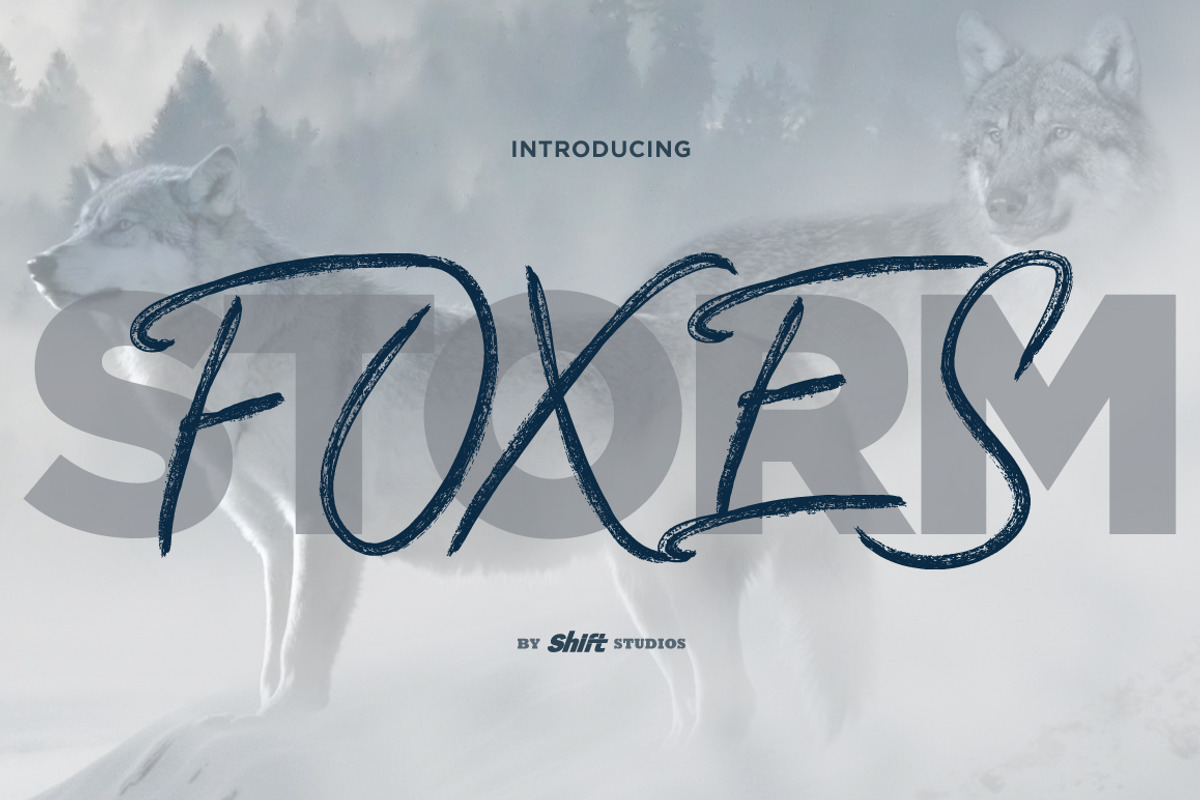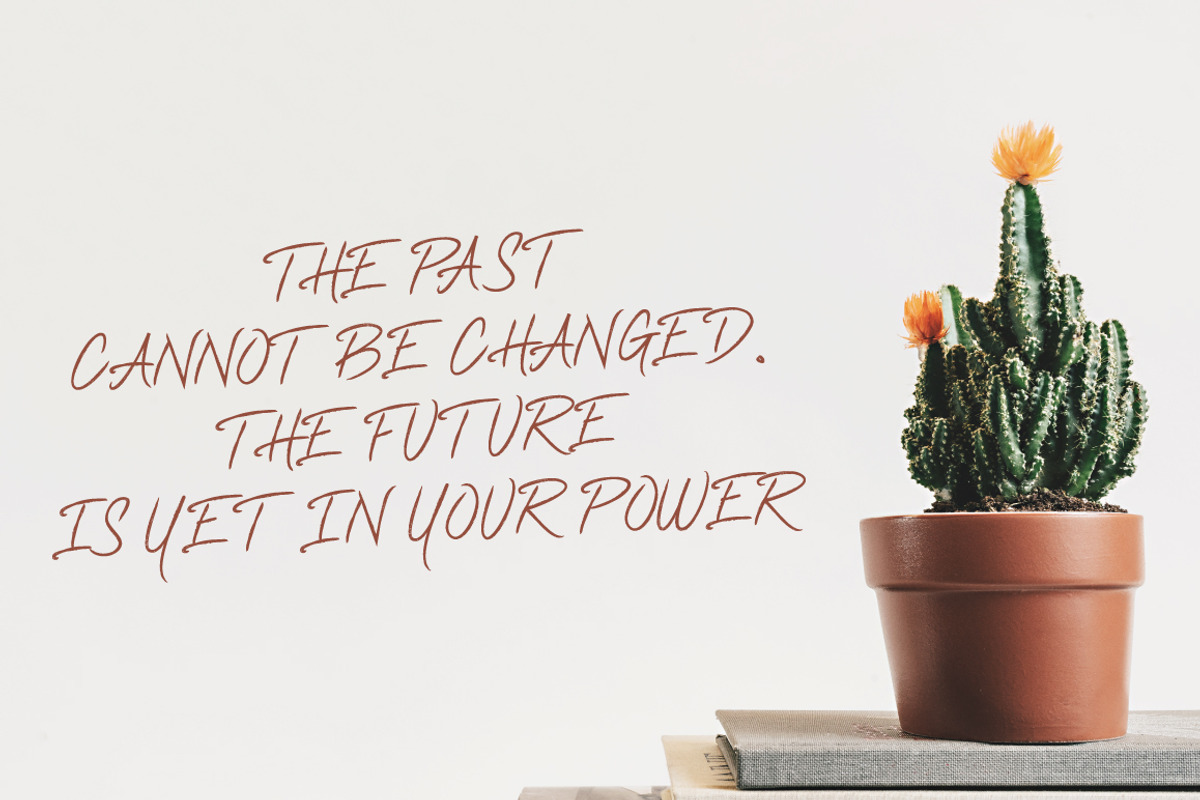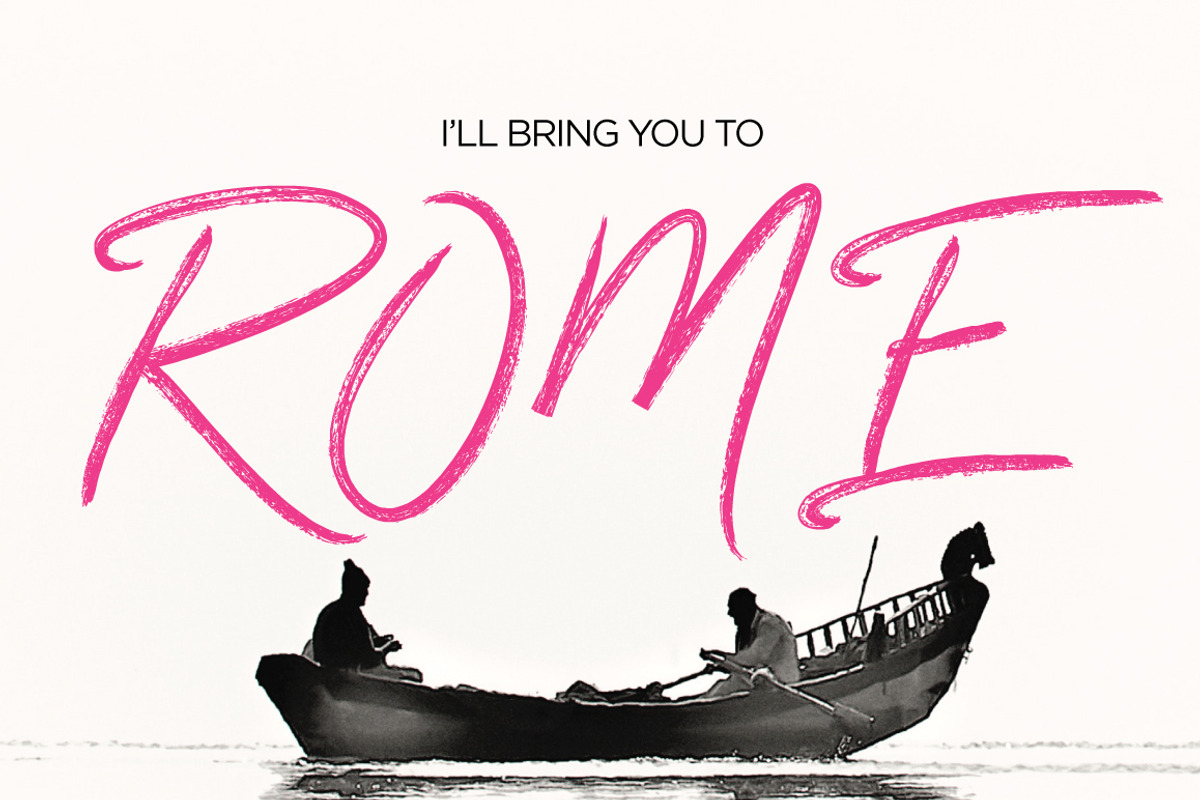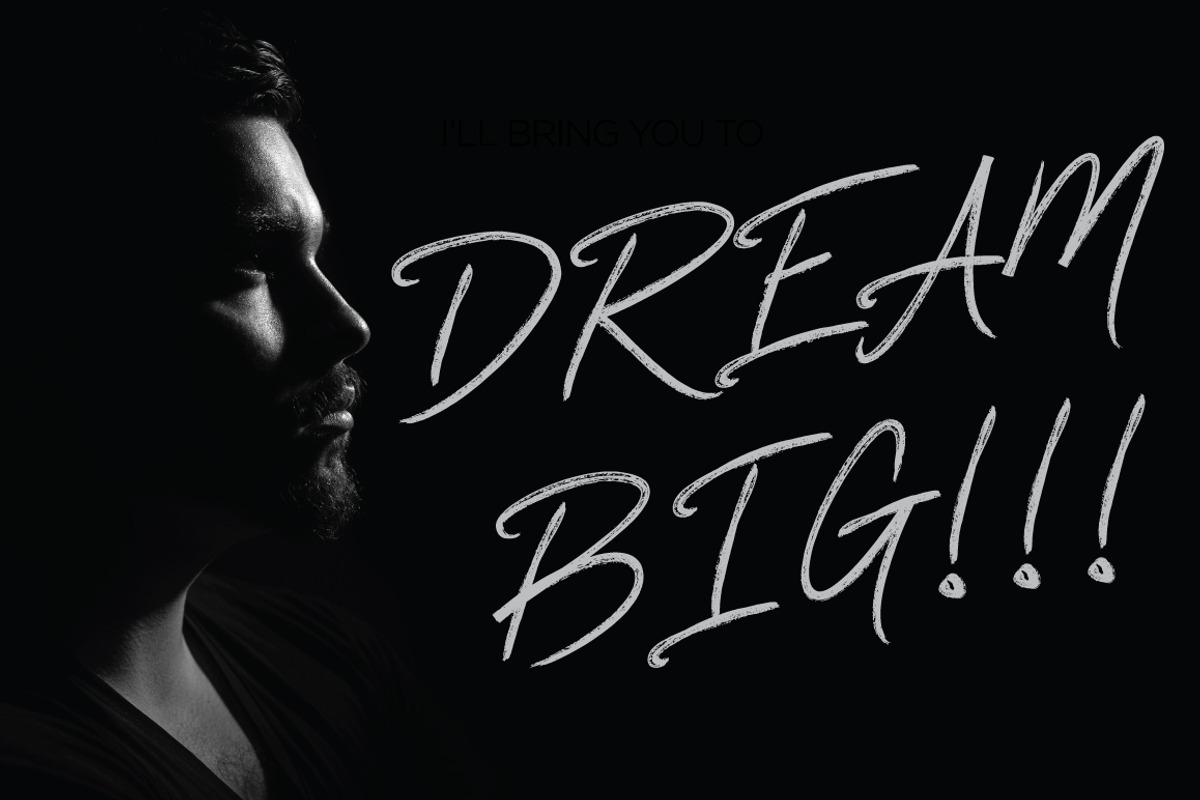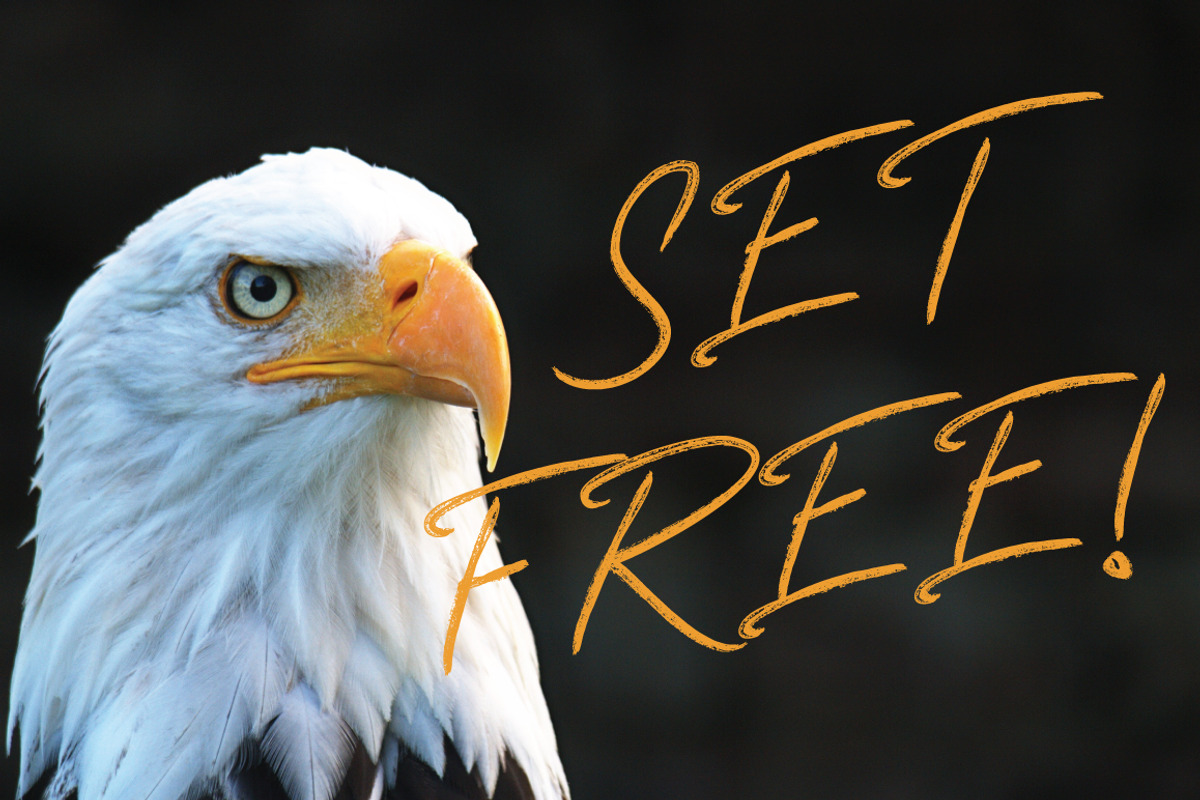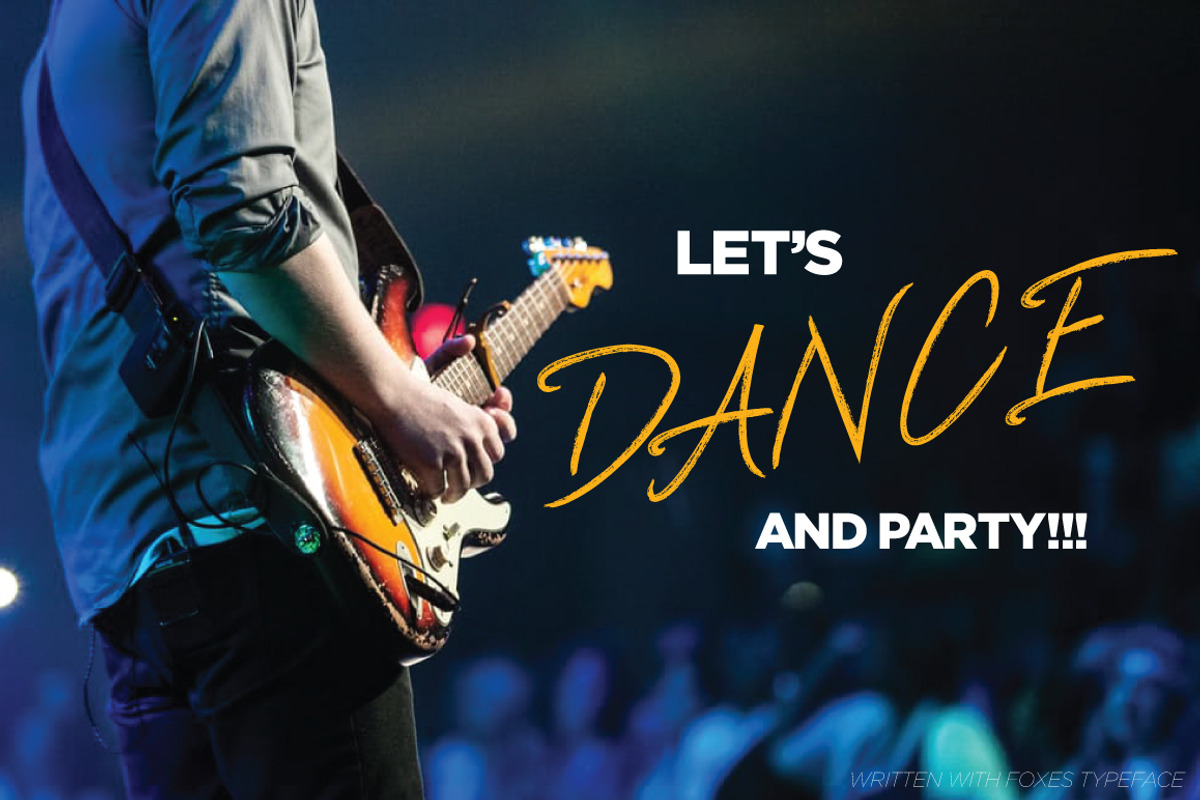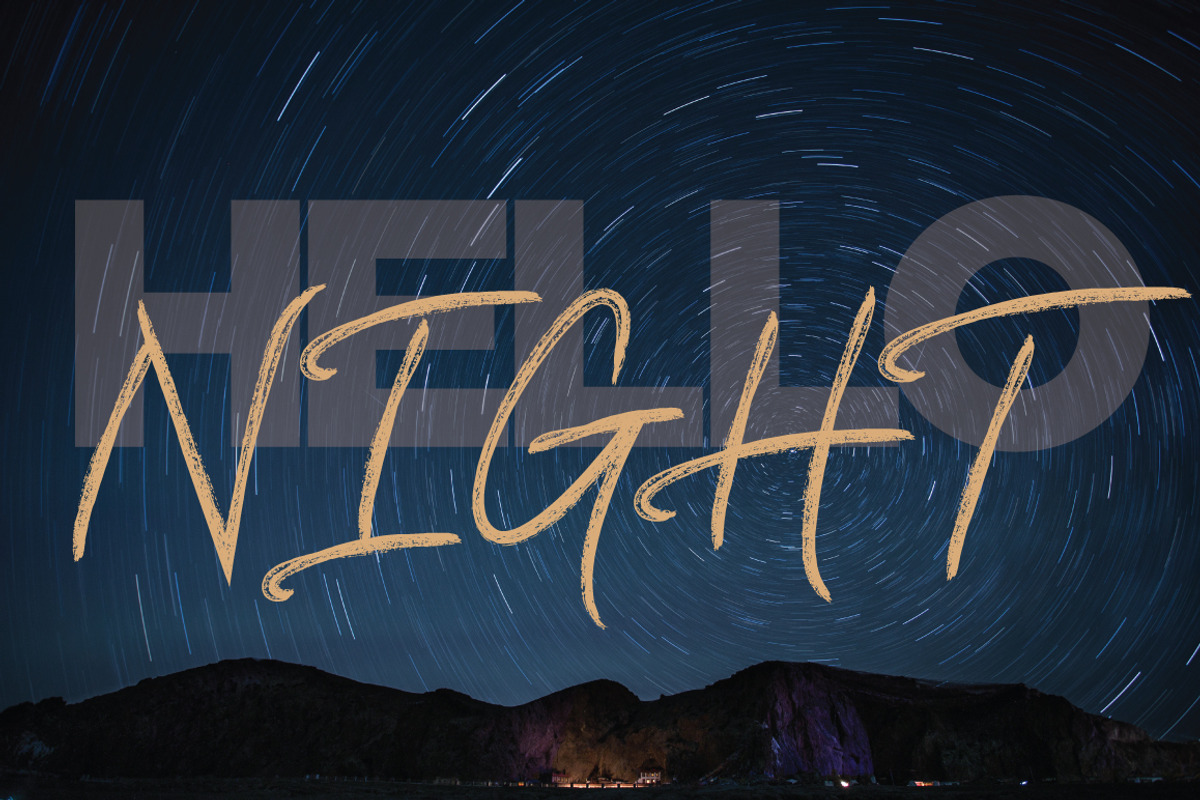
Foxes Typeface
Foxes brush font is an uppercase style of handwriting font. This brush font specifically established for beautiful and elegant handwriting brush looks and perfect also for your special branding.
Perfect for displays, headers, invitations, blogs, poster and so much more, Foxes will become a lively essential in your font collection!